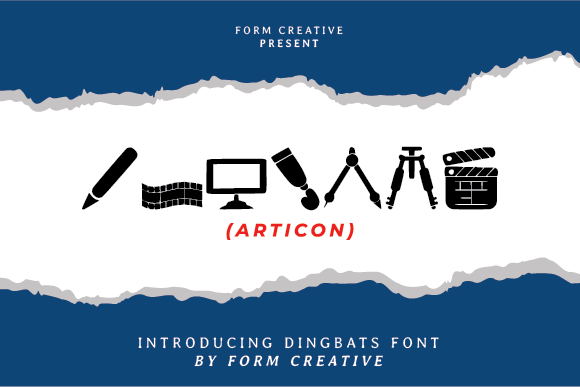
Stand out and make a powerful statement with Articon Font, a dynamic dingbats font family designed to elevate your podcast art to new heights! Unleash your creativity and make your podcast artwork shine with this loud, powerful, and tasteful font. Whether you're a seasoned podcaster or just starting, Articon Font is the perfect tool to capture your audience's attention and leave a lasting impression.
Articon Font is not just a collection of symbols; it's an explosion of artistic expression. With its captivating designs and endless possibilities, you can create podcast art that truly reflects your show's unique personality and style. Say goodbye to boring, generic podcast covers and embrace the extraordinary with Articon Font.
Step into a world of limitless design possibilities with Articon Font. Use it as an icon or complement in your design, and watch your podcast art come to life. Experiment with different styles, colors, and combinations to create something truly unique. The font's versatility allows you to craft podcast art that perfectly matches your show's theme, genre, and target audience.
Creating captivating podcast art is not just about aesthetics; it's about connecting with your audience on an emotional level. Articon Font empowers you to do just that. Whether you want to convey a sense of excitement, intrigue, humor, or thoughtfulness, this font has the power to evoke emotions and draw listeners in.
Take your podcast to the next level with Articon Font. Experience the joy of creating podcast art that captivates, engages, and inspires. It's time to make a statement, stand out from the crowd, and leave an unforgettable impression on your audience. Download Articon Font today and unleash the power of great design!